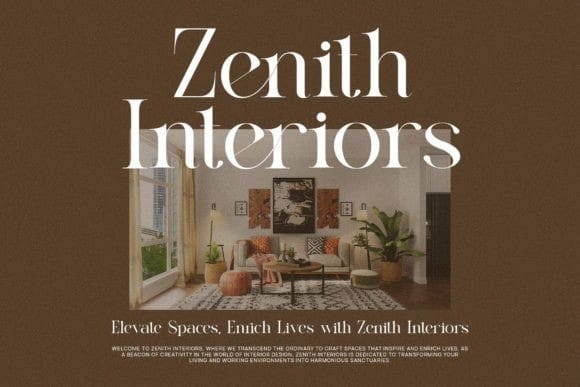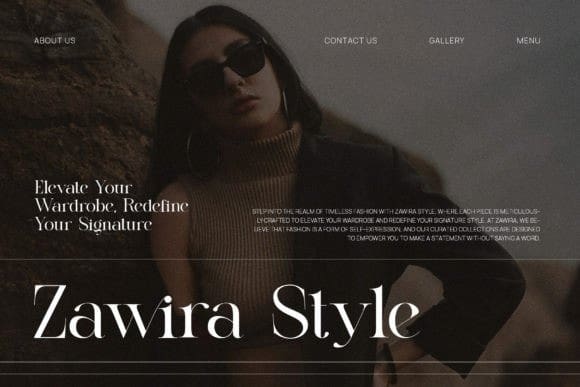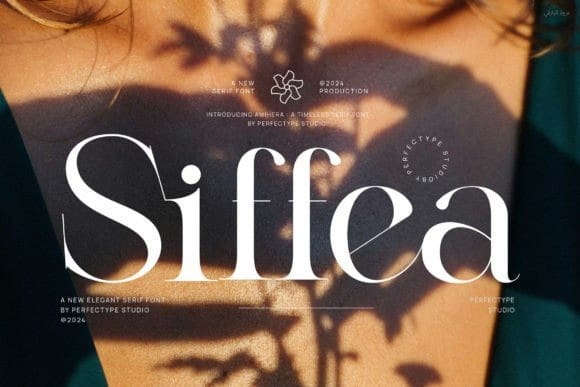
Siffea Font
Siffea Font, this is a very elegant and classy font for all branding and logo designs. This type of serif font is created with elegance and luxury so it is perfect for all your design needs. This font is equipped with many beautiful and unique ligature and alternate options. This type of font is very suitable for your various needs such as branding projects, logos, social media posts, advertisements, labels, product packaging, photography, wedding designs, watermarks, invitation product designs, stationery, and any project.